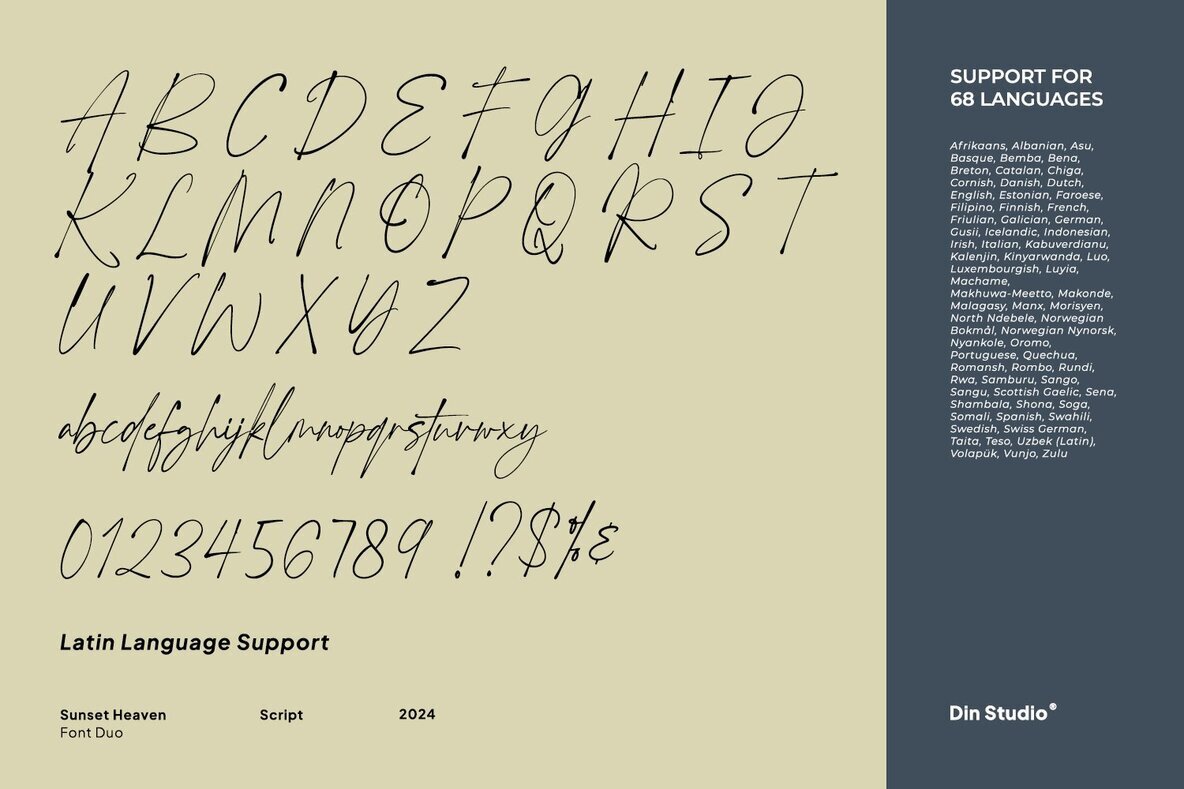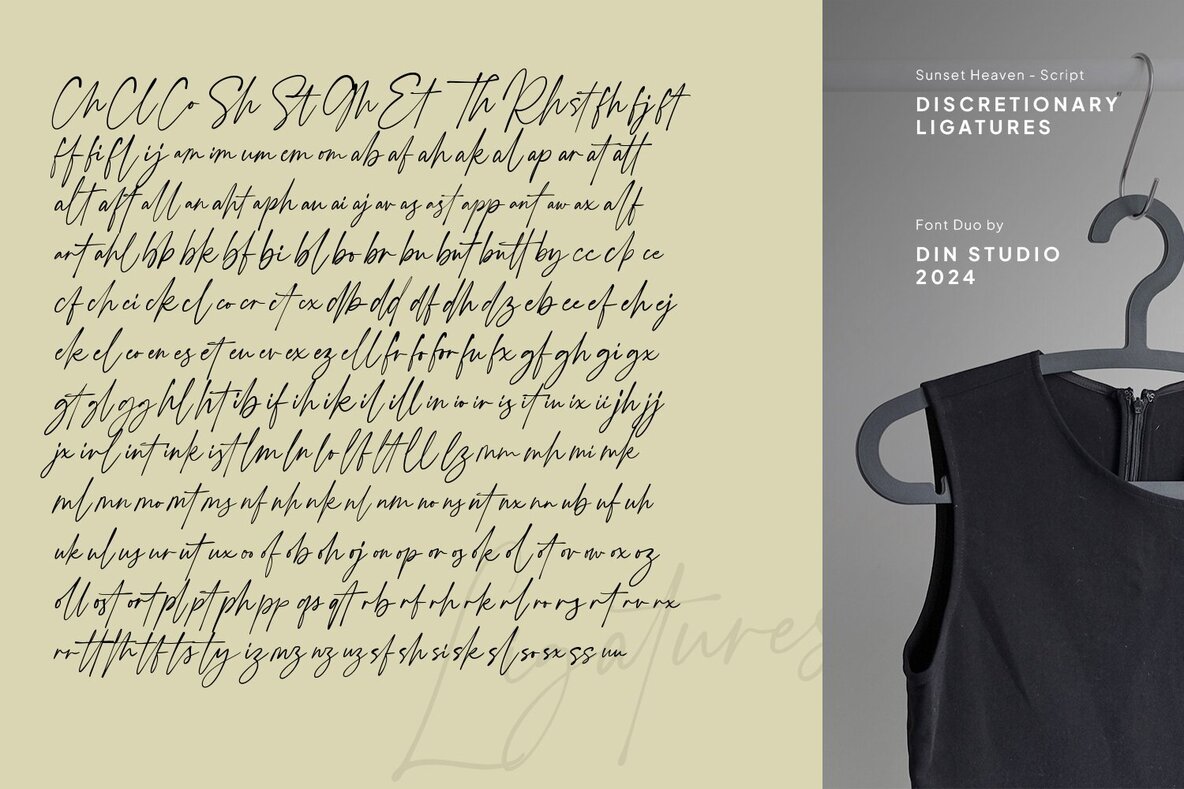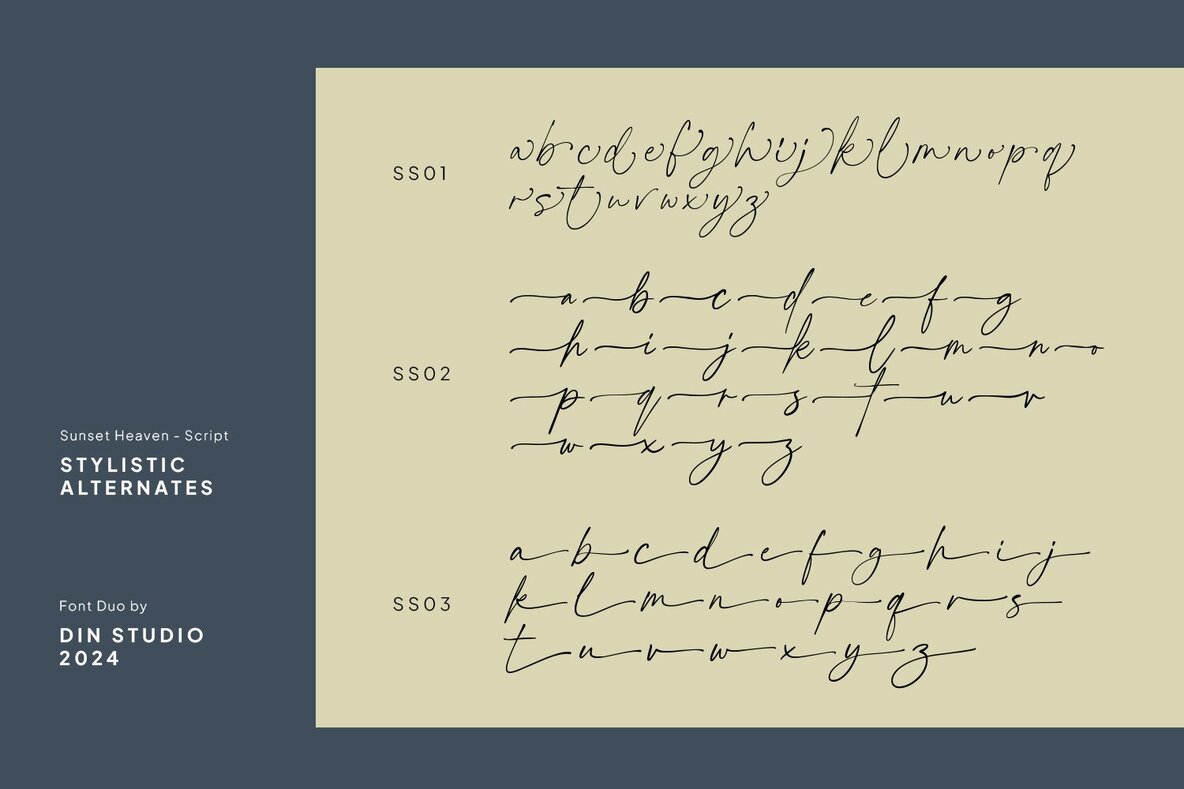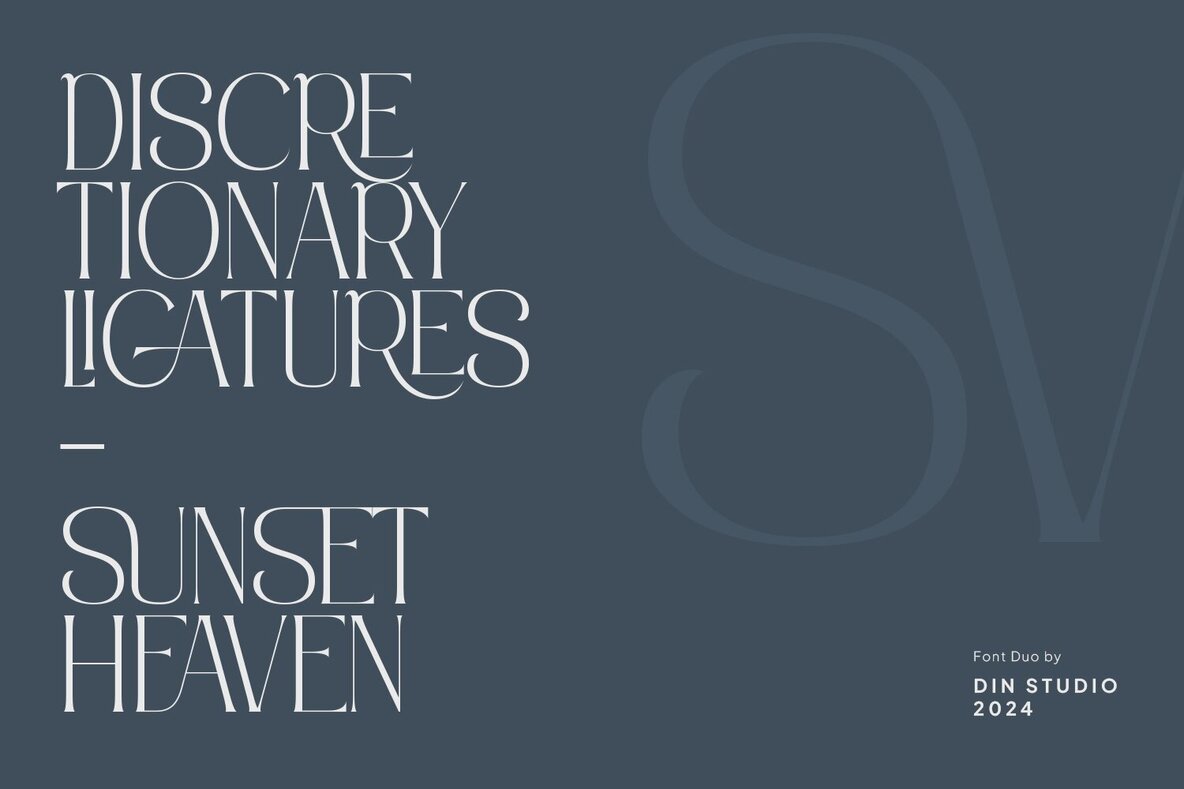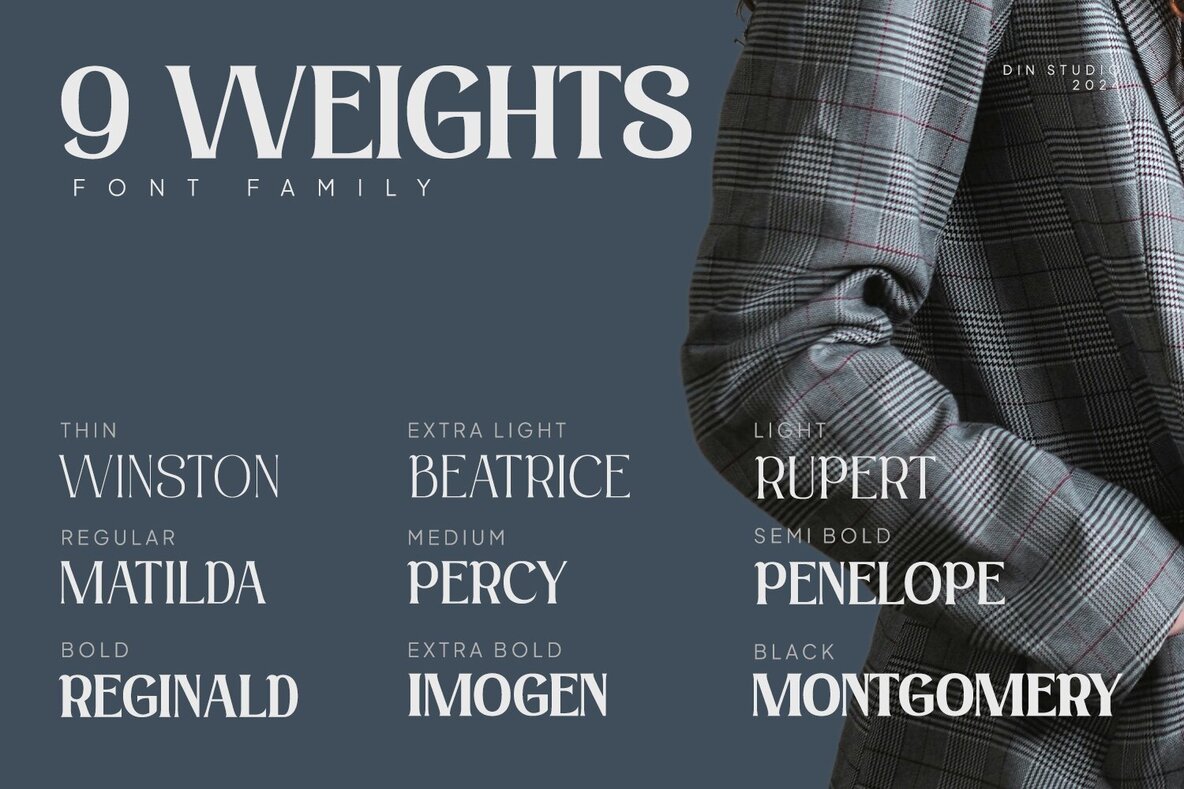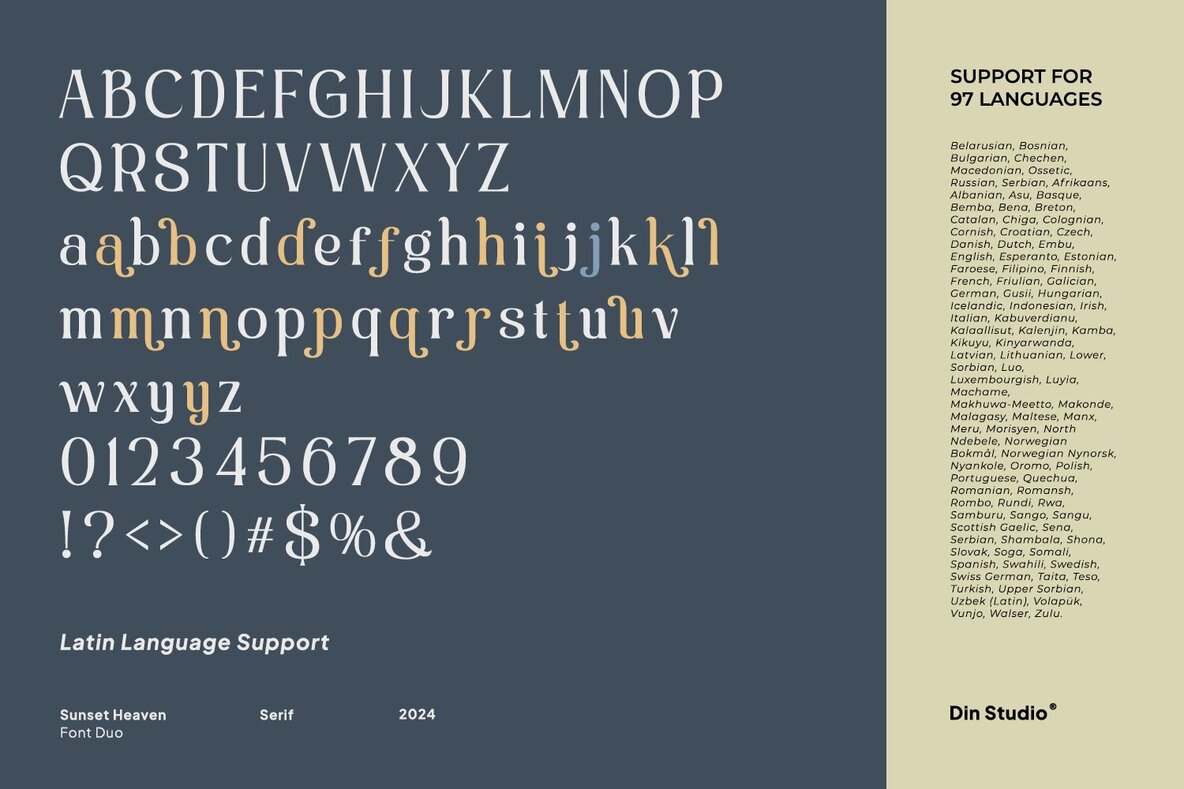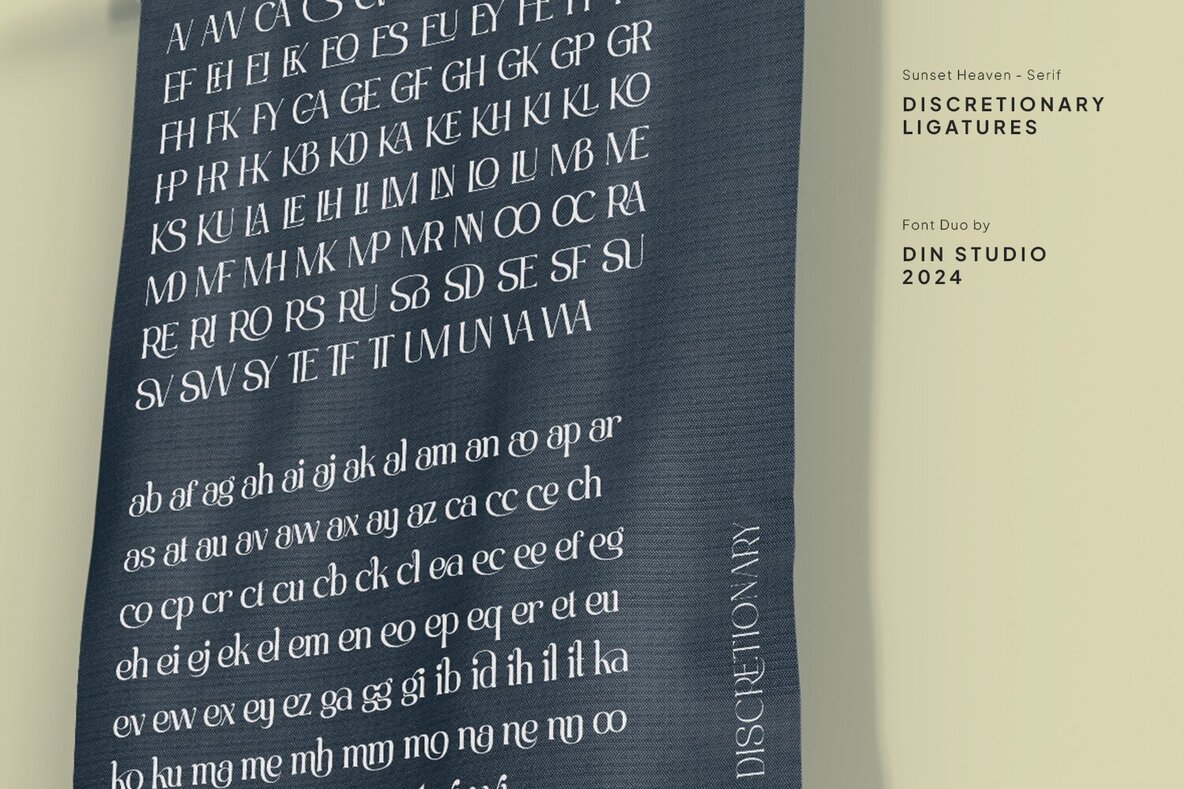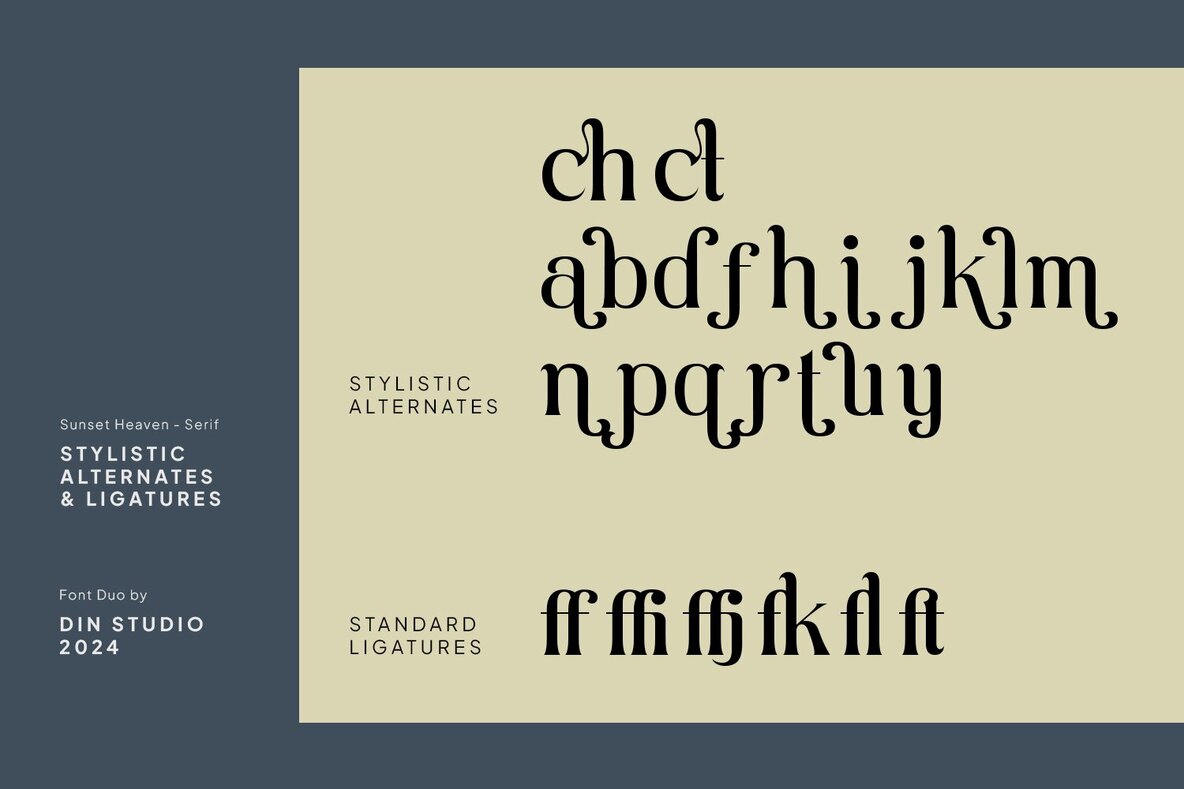
Sunset Heaven Font
Discover the breathtaking duo font family collection, Sunset Heaven. This exquisite pairing juxtaposes the elegance of serif fonts with the fluidity of script fonts, capturing the harmonious contrast in nature’s wonders. The serif font is a true masterpiece, offering an impressive range of nine weight variations, from the delicate Thin to the commanding Black, catering to diverse design requirements.
Complementing the robust versatility of the serif, the script font captures the essence of cursive handwriting with its fluid strokes and organic flow, bringing a personal touch to projects. Together, these fonts offer a dynamic duo of possibilities, allowing designers to create both cohesive and contrasting designs effortlessly.
Key features include ligatures, stylistic sets, multilingual support, PUA encoding, as well as numerals and punctuations. Ideal for headlines, logos, posters, flyers, branding materials, greeting cards, print media, and editorial layouts, Sunset Heaven adapts to numerous design contexts. Explore its potential and enhance your creative projects by taking a closer look at the font preview.